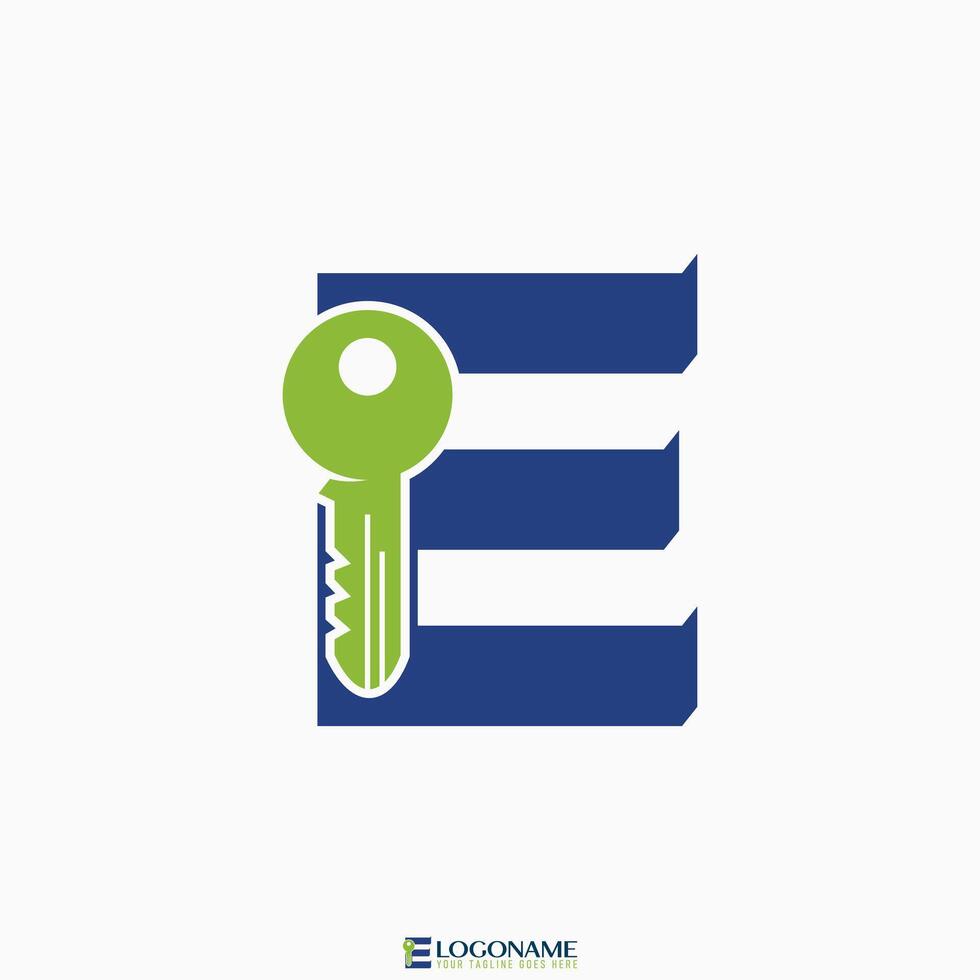
Logo design graphic concept creative abstract premium stock initial 3D E font with house door key. Related to monogram typography home property Pro Vector